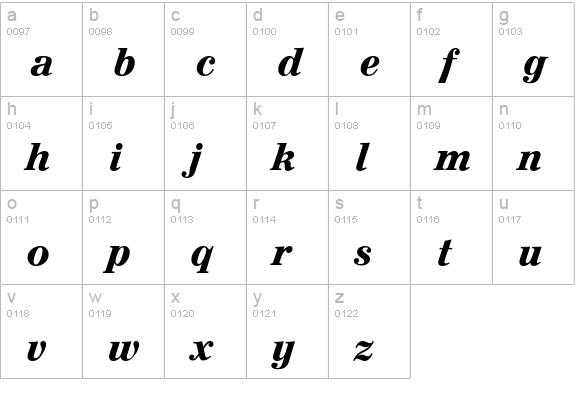
A850-Roman-BoldItalic Font Details
The A850-Roman-BoldItalic font is a stunning display typeface that exudes elegance and sophistication. With its bold and italic design, this font is perfect for creating eye-catching headlines, titles, and logos. The sleek lines and sharp edges of this typeface make it stand out on any design project, adding a touch of modernity and style. What's even better is that the A850-Roman-BoldItalic font is available for free download at FontsMarket.com. This means that you can easily access this beautiful typeface and incorporate it into your designs without any cost. Whether you're working on a branding project, poster design, or website layout, the A850-Roman-BoldItalic font is sure to make a statement and elevate your design to the next level. Download this font today and unleash your creativity!